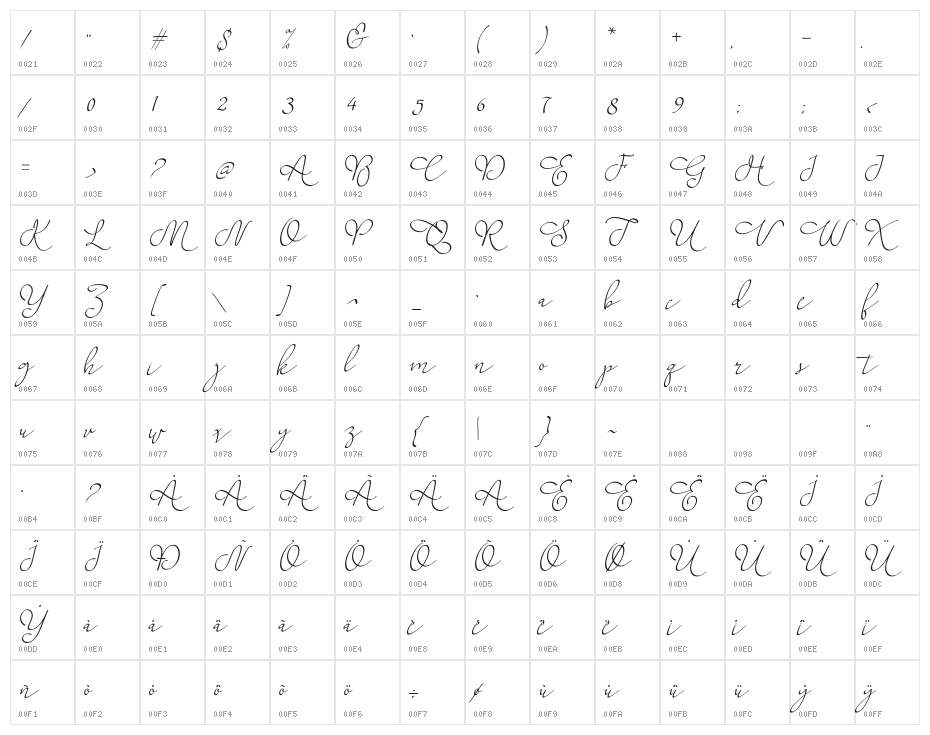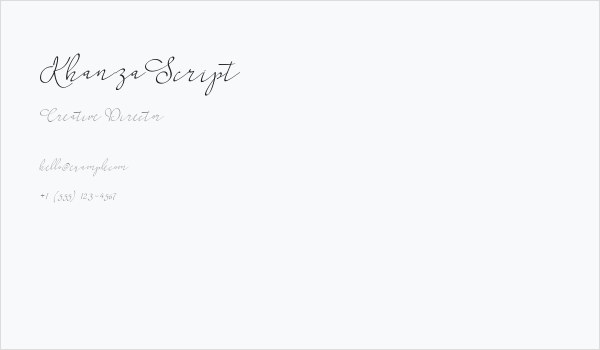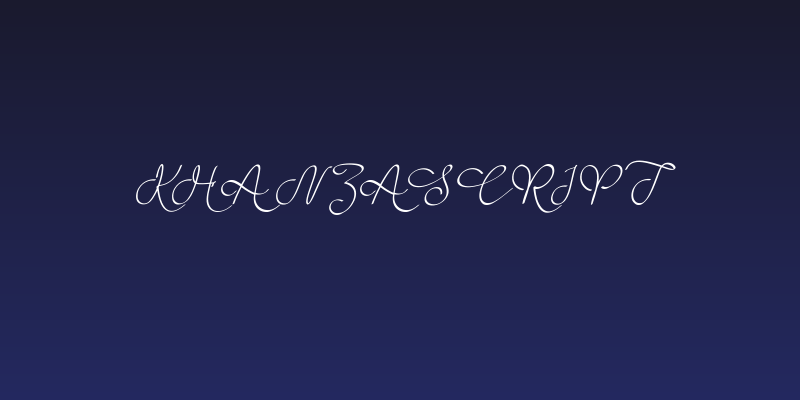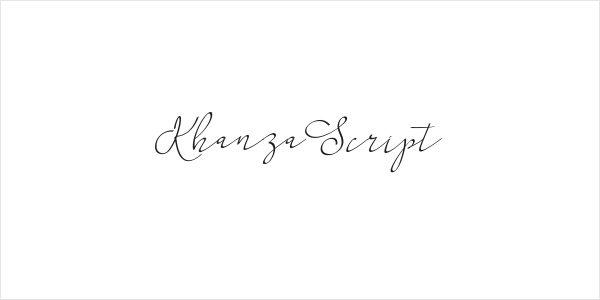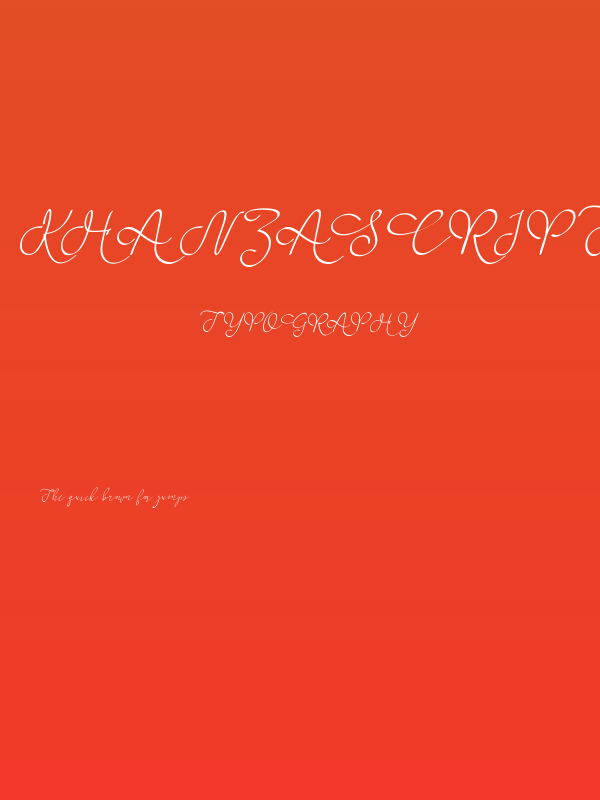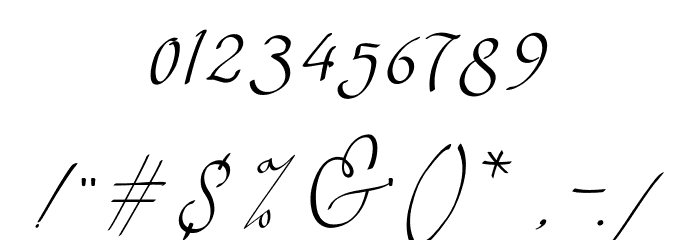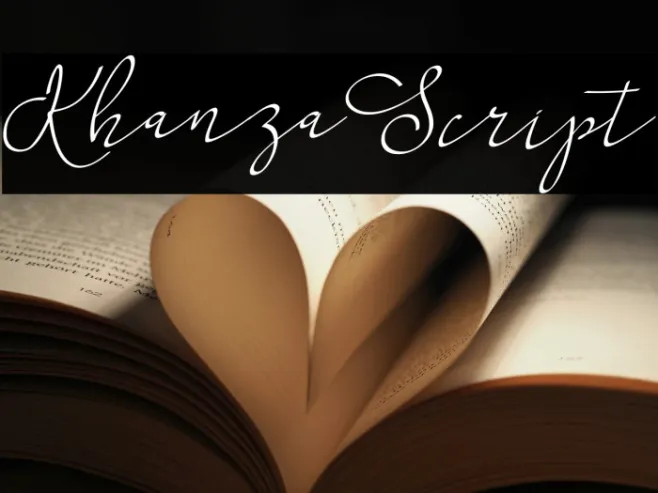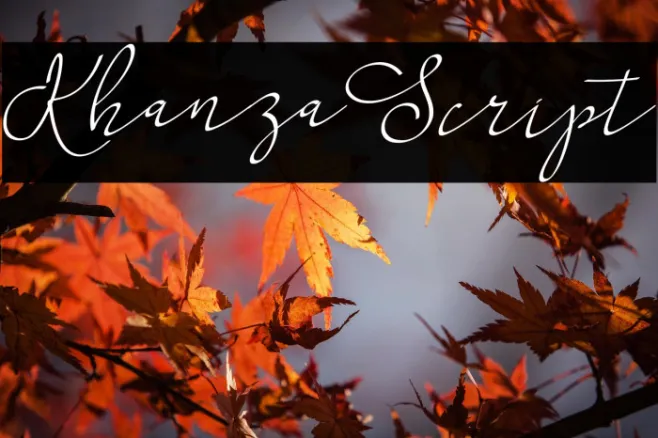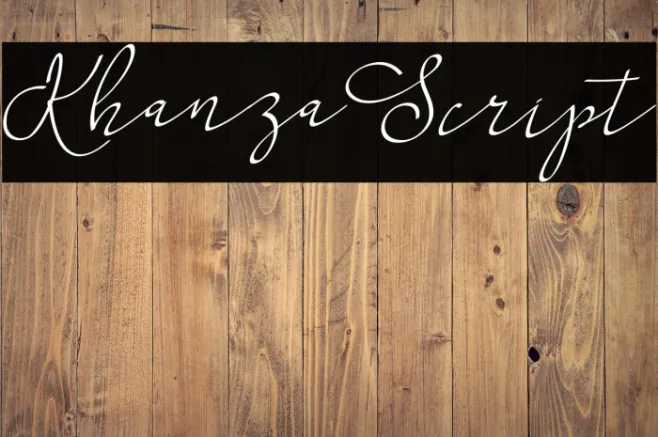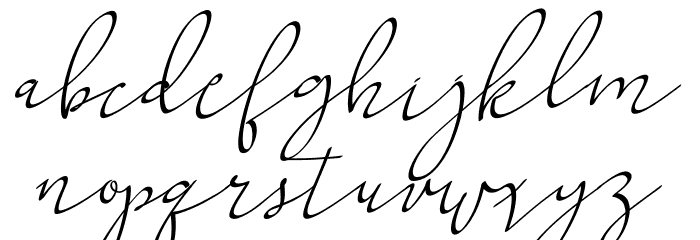
KhanzaScript Font
KhanzaScript Description
This elegant script font features flowing, cursive letters with a graceful and sophisticated style. The uppercase letters are beautifully looped and connected, while the lowercase letters maintain a consistent flow, creating a harmonious and fluid appearance. The numerals are designed with a similar flair, adding to the overall cohesive look. Special characters are thoughtfully integrated, maintaining the font's elegant aesthetic. This font is perfect for projects that require a touch of class and refinement.
| Overall Style | Elegant, Sophisticated |
| Proposed Projects | Ideal for wedding invitations, elegant branding, greeting cards, and luxury product packaging. |